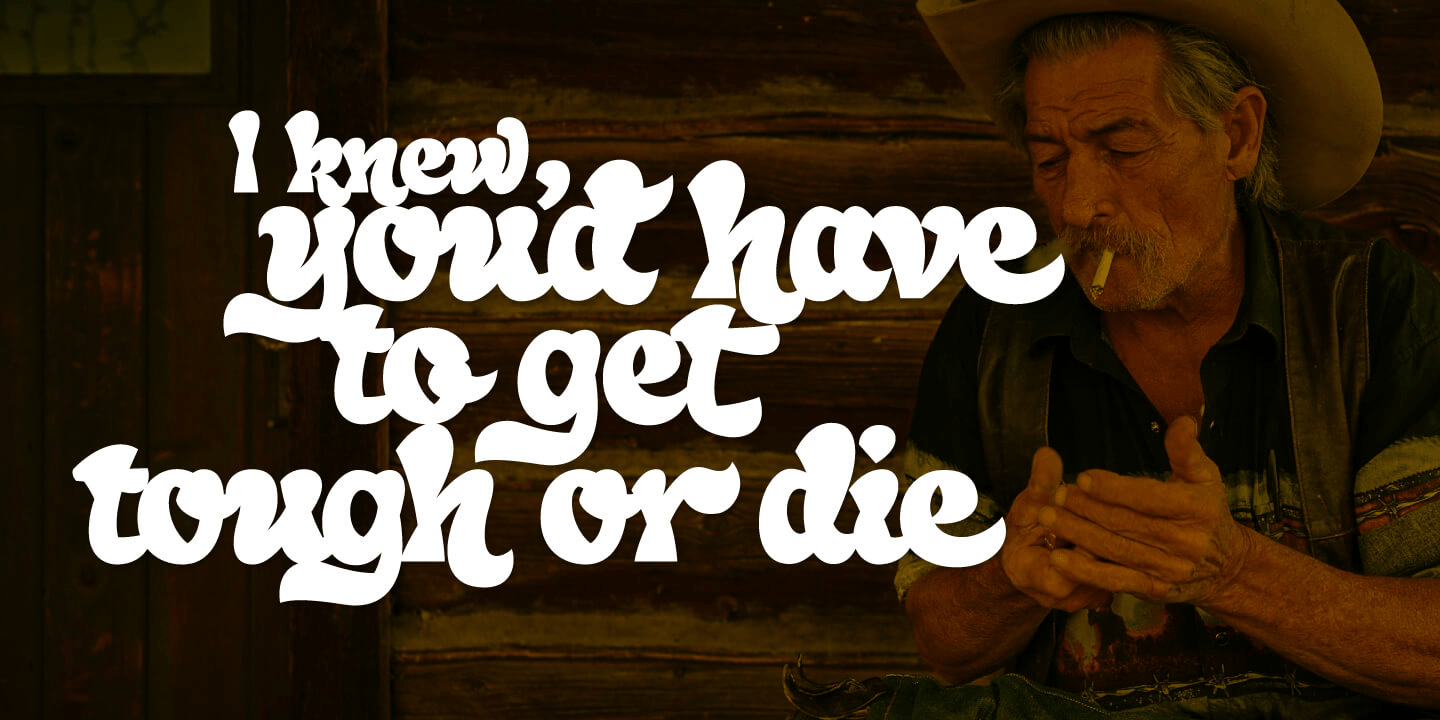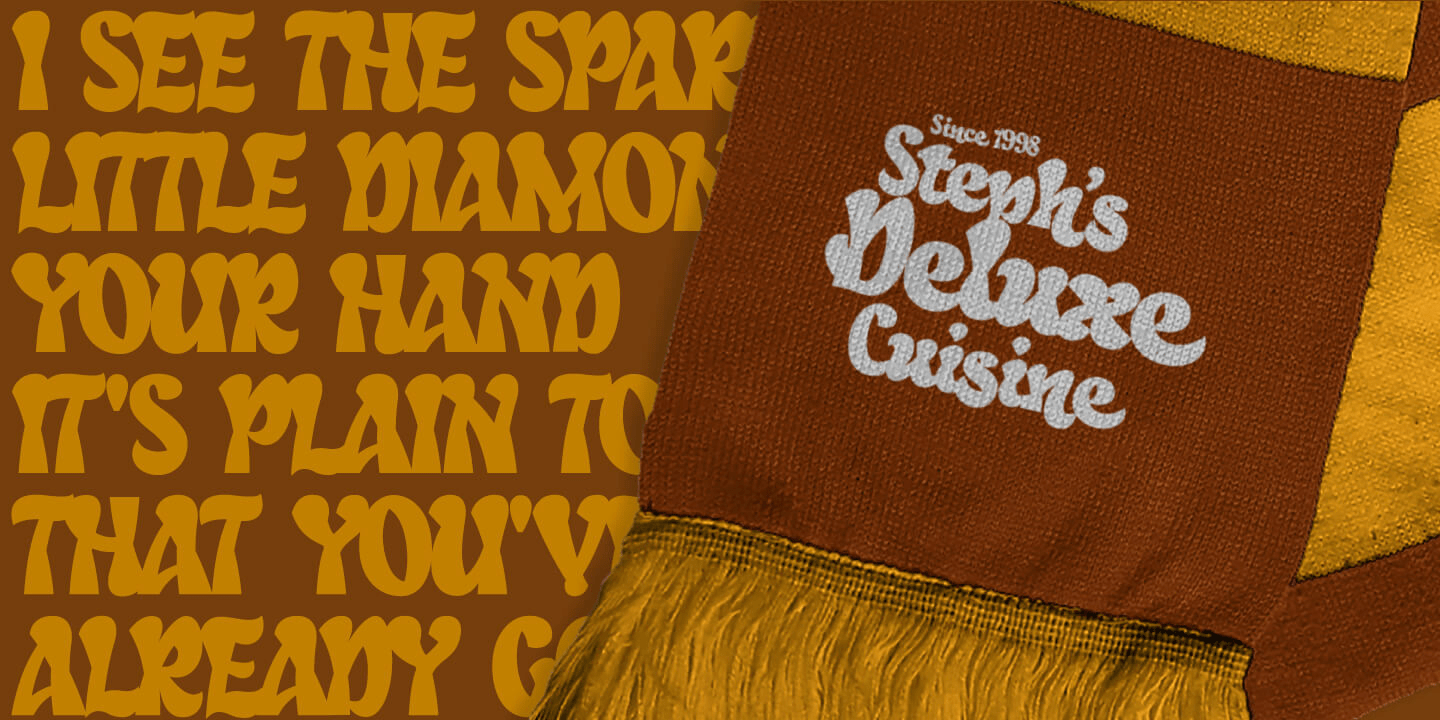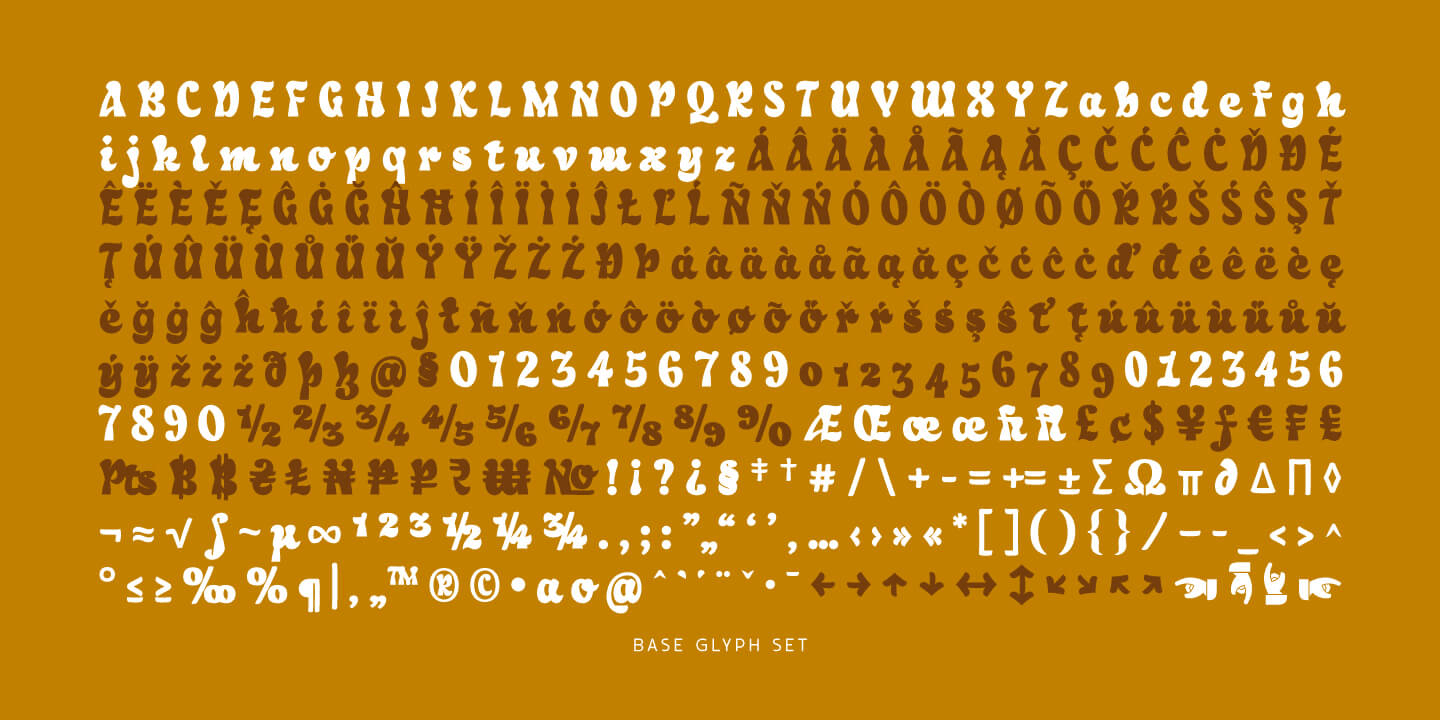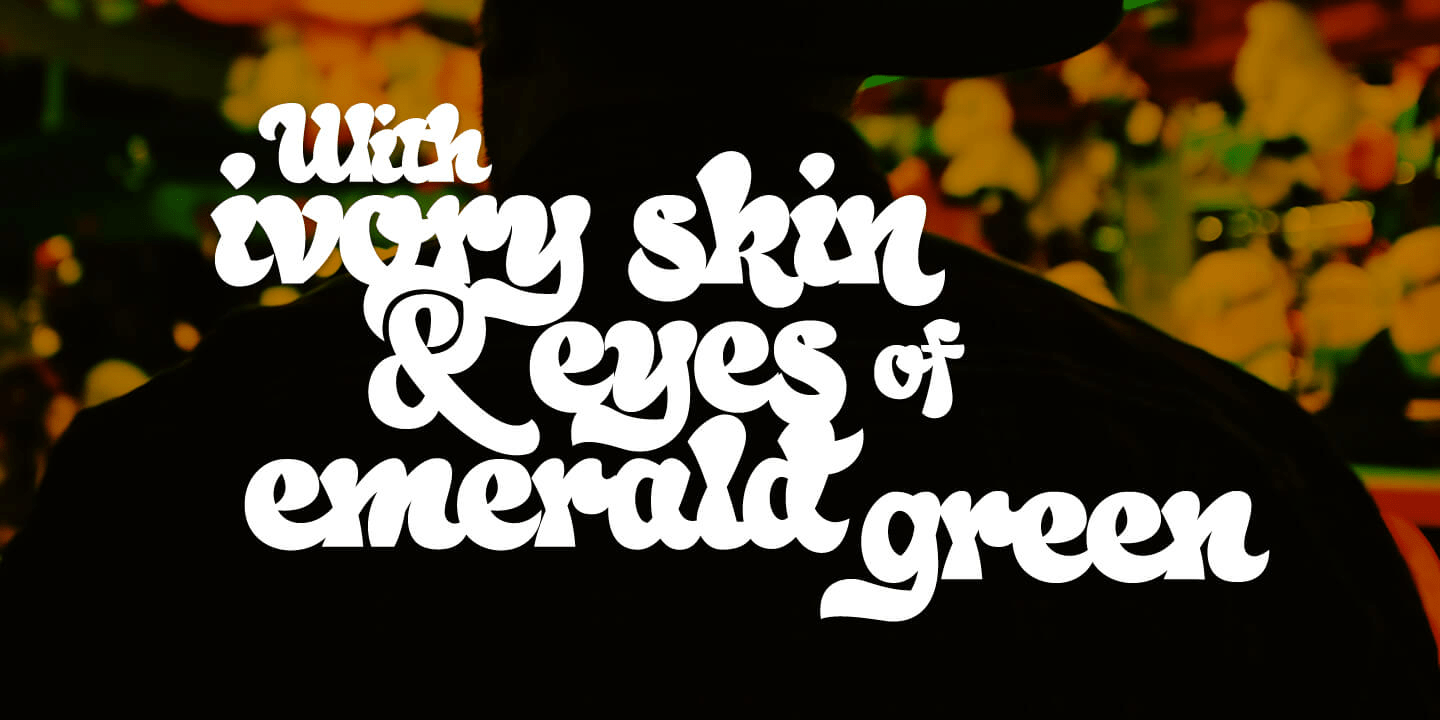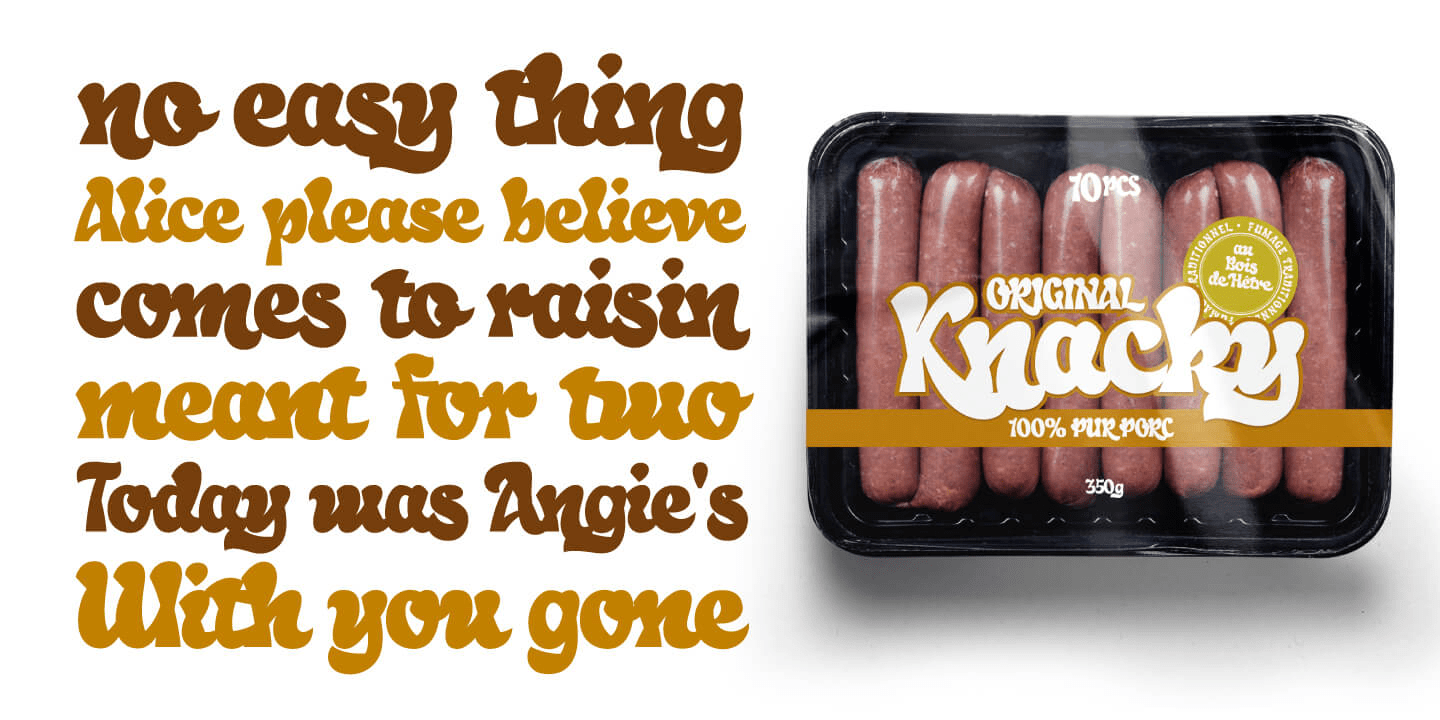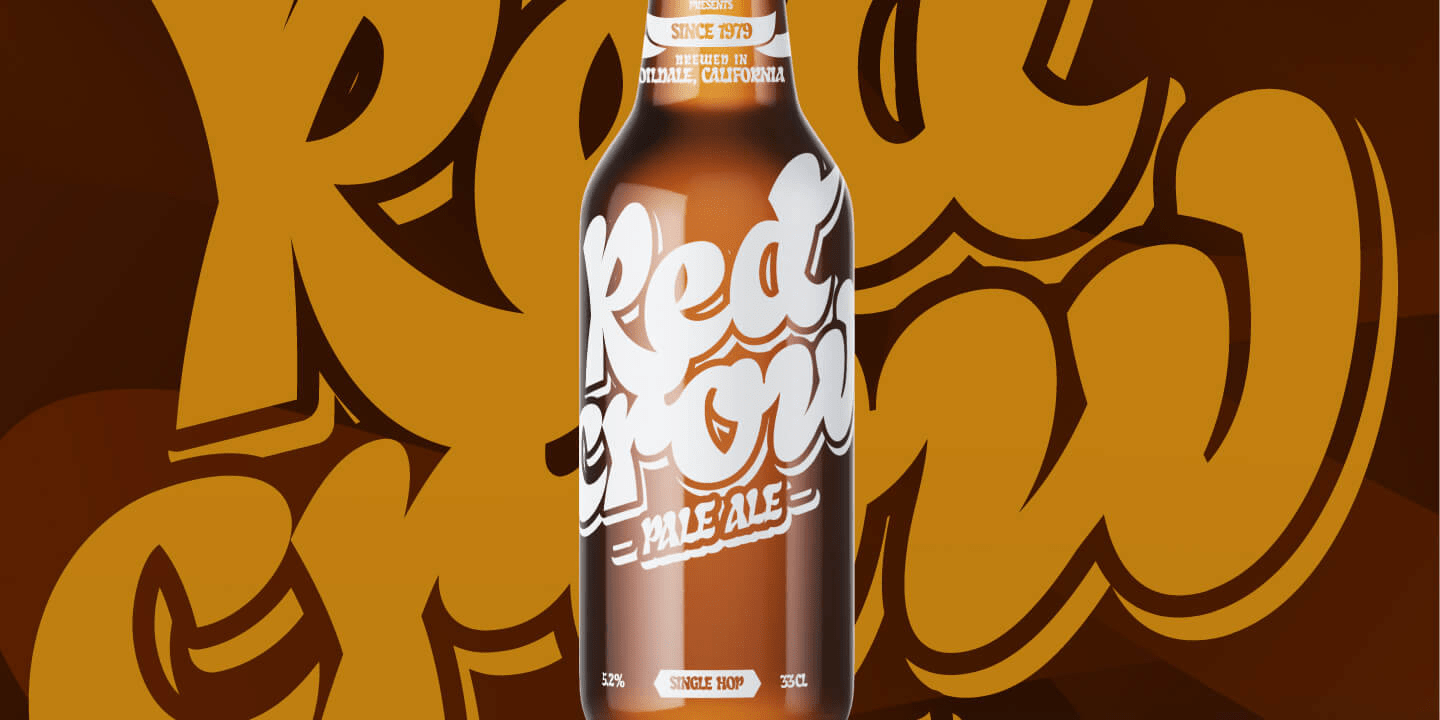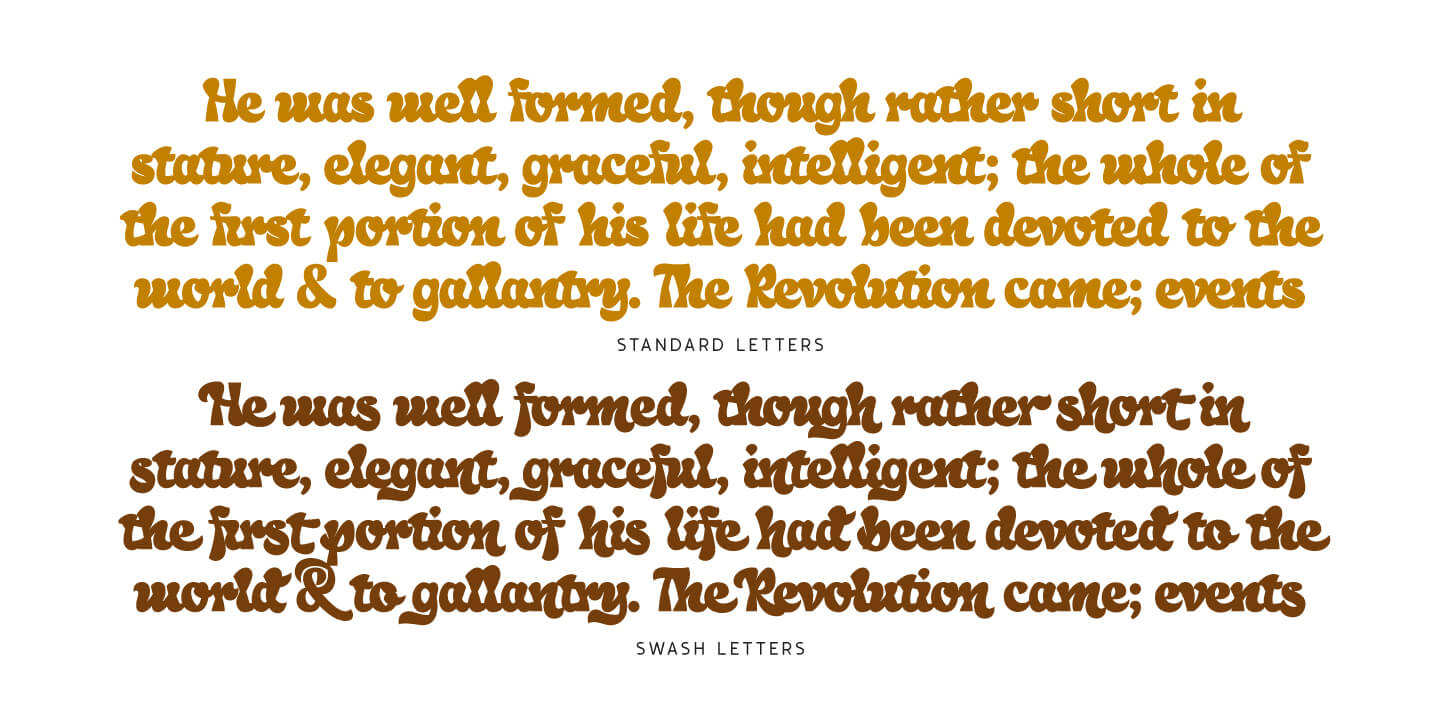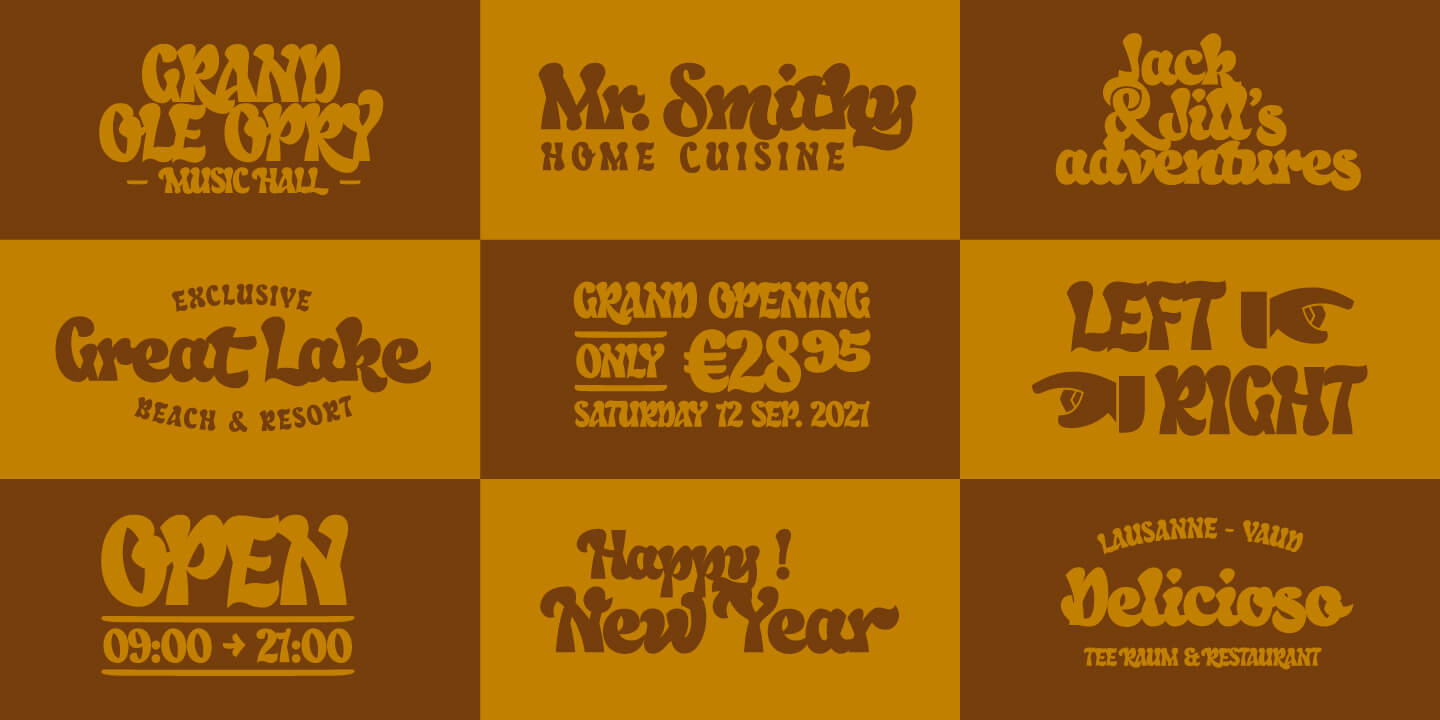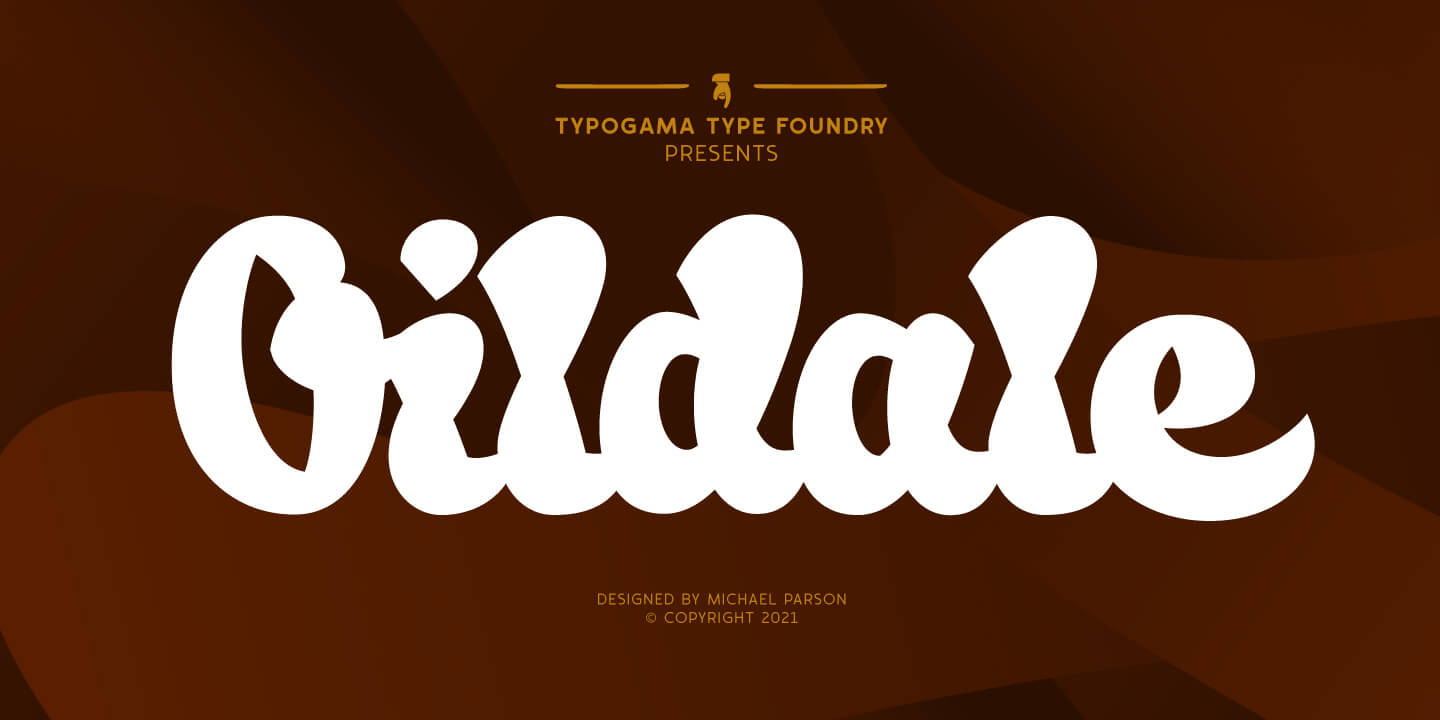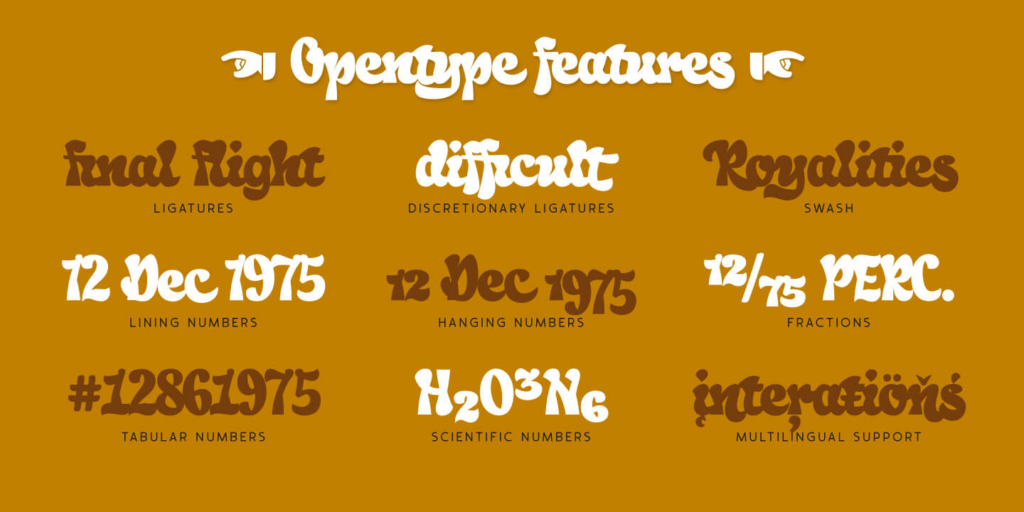
Oildale Regular
About Oildale Regular
Oildale is a single weight, connecting script that explores the idea of using crossed strokes as the main body of the typeface. Designed as a display font, it’s bold form and unique appearance lend it a distinctive charm that can be used in branding,…